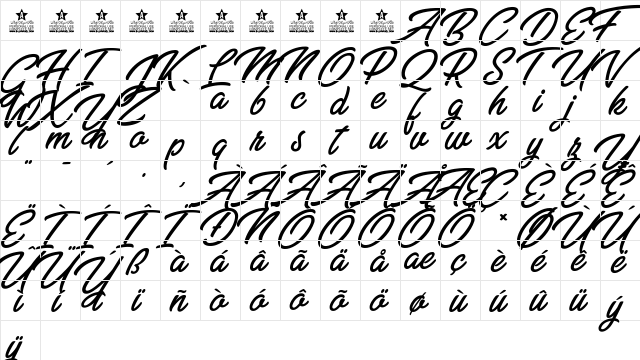
Bella Fashion Personal Use Regular
| Foundry | Billy Argel |
| Designer | Billy Argel |
Design Context for Bella Fashion Personal Use Typeface
Bella Fashion Personal Use is a composed and adaptable typeface that performs quietly and consistently across a wide range of design contexts.